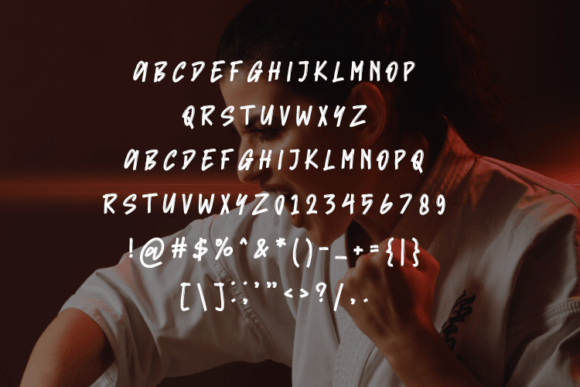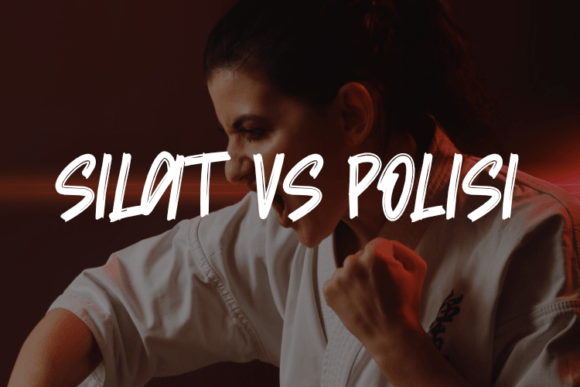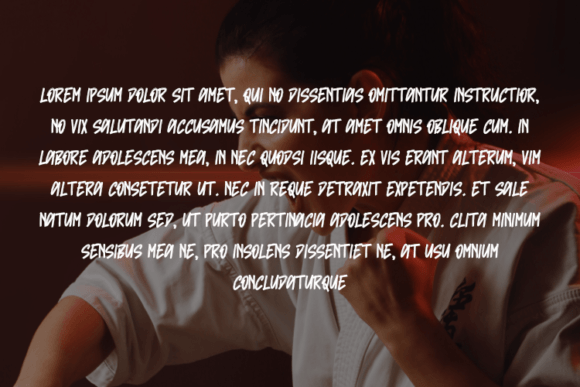
Unleash Your Creativity with BENTROK: The Versatile Font for Exceptional Designs
Are you a designer, crafter, or entrepreneur looking for a font that can help you take your design ideas to the next level? Look no further than BENTROK, the ultimate versatile font that’s always ready to transform your concepts into swanky realities. In this article, we’ll explore the features and benefits of BENTROK, and show you how it can become your trusty sidekick in the world of design.
The Power of BENTROK: Adaptability and Seamless Integration
BENTROK is more than just a font – it’s a design solution that’s packed with adaptability and seamlessly integrates with all design platforms. Whether you’re working on a clothing line, crafting a t-shirt design, or dreaming up other product creations, BENTROK is the perfect companion to help you bring your ideas to life.
With BENTROK, you can say goodbye to font compatibility issues and hello to a world of limitless design possibilities. Its versatility allows you to use it across various design applications, from Adobe Creative Suite to Canva, and even on social media platforms.
Designing with No Boundaries
Crafting with BENTROK means designing with no boundaries. This exceptional font is engineered to amplify the broad strokes of your imagination, allowing you to push the limits of your creativity. Whether you’re a seasoned designer or a beginner, BENTROK provides the perfect balance of style and flexibility to help you create stunning designs that stand out.
Imagine being able to experiment with different design concepts, trying out new and bold ideas, and seeing them come to life in a font that’s both elegant and edgy. With BENTROK, you can do just that, and watch your designs transform from everyday to exceptional.
Who Can Benefit from BENTROK?
BENTROK is perfect for a wide range of designers, crafters, and entrepreneurs, including:
- Fashion designers and clothing lines looking for a stylish and versatile font to brand their products
- T-shirt designers and print-on-demand enthusiasts seeking a font that can help them create eye-catching designs
- Graphic designers and digital artists looking for a font that can add a touch of elegance and sophistication to their work
- Crafters and makers who want to add a professional touch to their handmade products
- Small business owners and entrepreneurs who need a font that can help them establish a strong brand identity
In conclusion, BENTROK is more than just a font – it’s a design solution that’s designed to help you unleash your creativity and take your design ideas to the next level. With its adaptability, seamless integration, and exceptional style, BENTROK is the perfect companion for designers, crafters, and entrepreneurs who want to create stunning designs that stand out.
So why wait? Dive in and discover the power of BENTROK for yourself. With this versatile font by your side, you’ll be able to transform your design ideas into swanky realities and take your creativity to new heights.